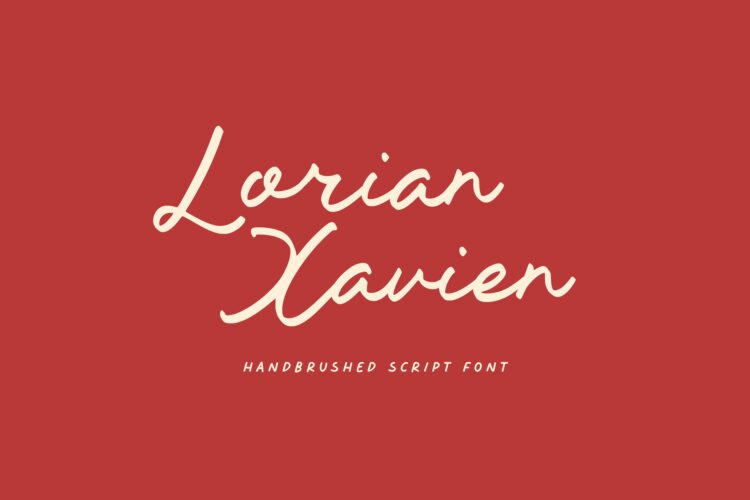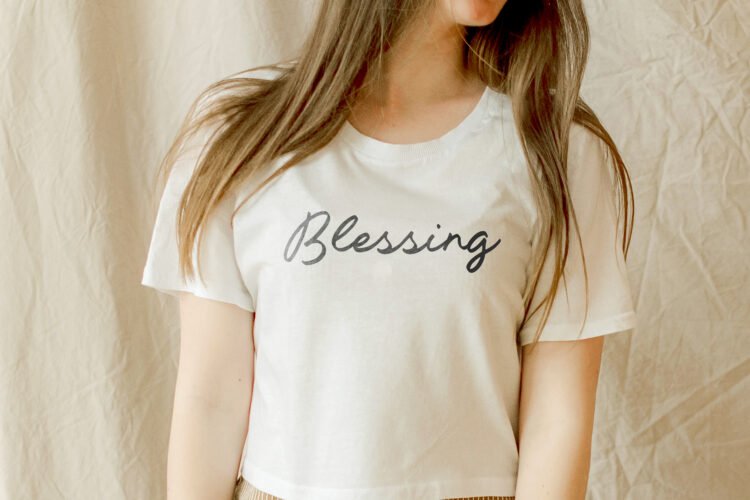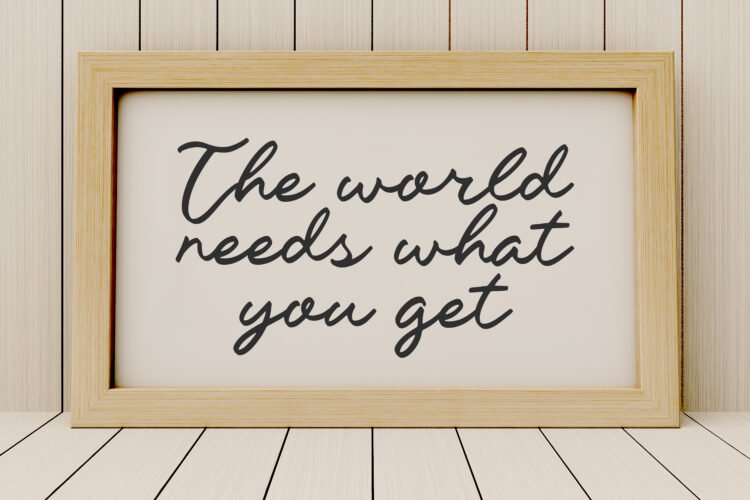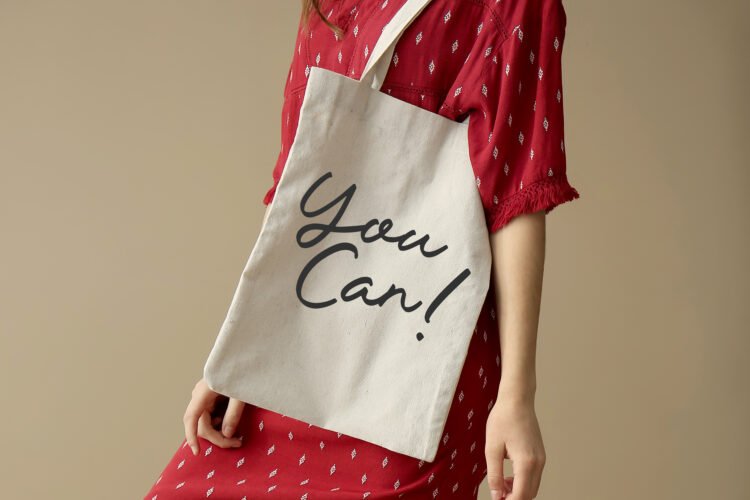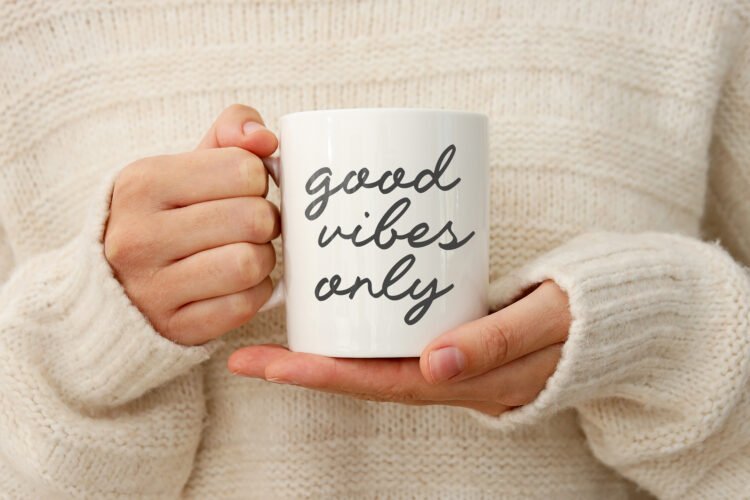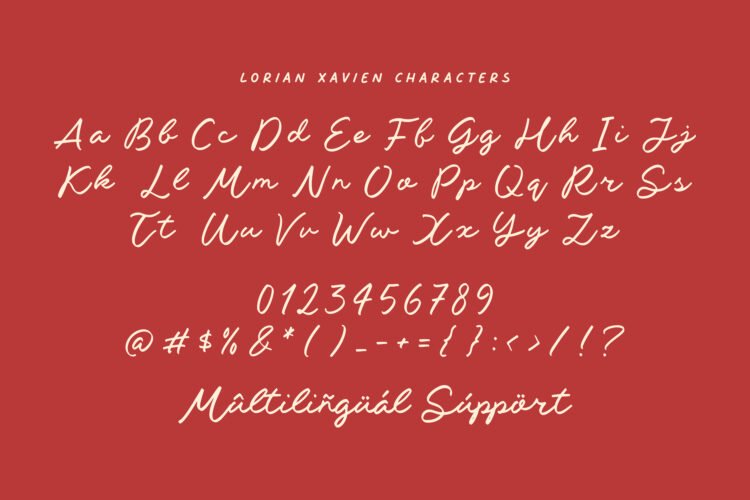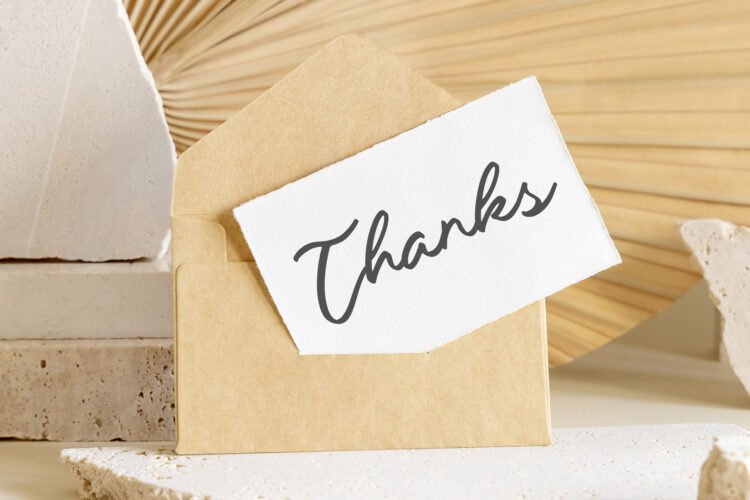
Lorian Xavien is a Handbrushed Script Font
This font is a bold handbrushed script font with expressive strokes and a natural, artistic feel. Its dynamic letterforms bring a touch of handcrafted character, making it perfect for branding, posters, packaging, and creative designs.
Lorian Xavien Font also supports multilingualism